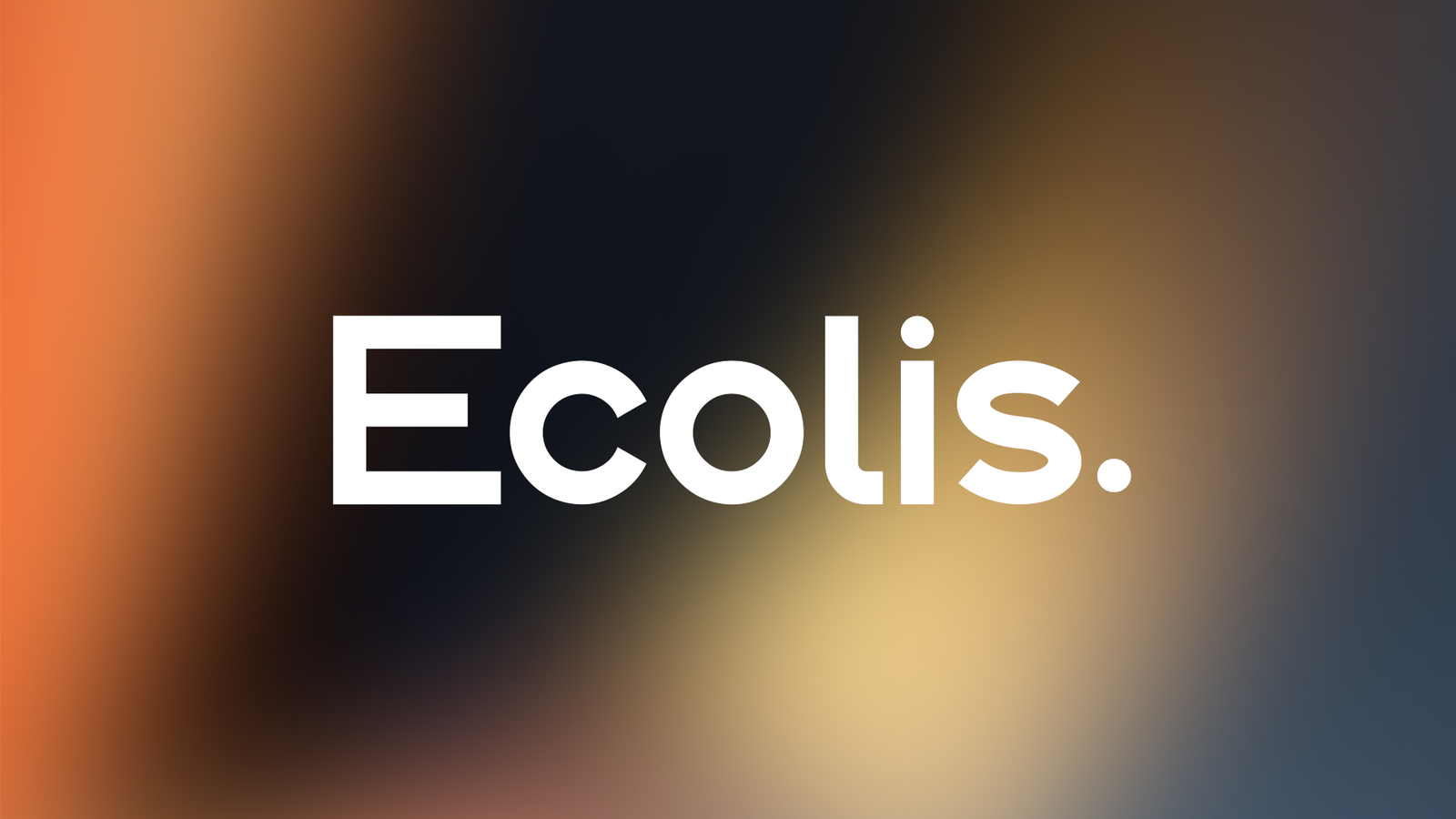
Modern fonts are sleek, stylish, and designed to bring a contemporary touch to any project. Characterized by clean lines, geometric shapes, and minimalistic aesthetics, these fonts are perfect for branding, web design, editorial layouts, and digital media. Whether you need a bold sans-serif, an elegant serif, or a futuristic typeface, our collection of free modern fonts offers a wide range of options to suit your creative needs. These high-quality fonts ensure readability and sophistication, making them ideal for logos, business cards, presentations, and social media graphics. Available in TTF and OTF formats, they are easy to use across various design platforms. If you’re looking to create a sleek and professional look, modern fonts are the perfect choice. Download now and give your designs a fresh, contemporary feel with stunning, free-to-use typography.